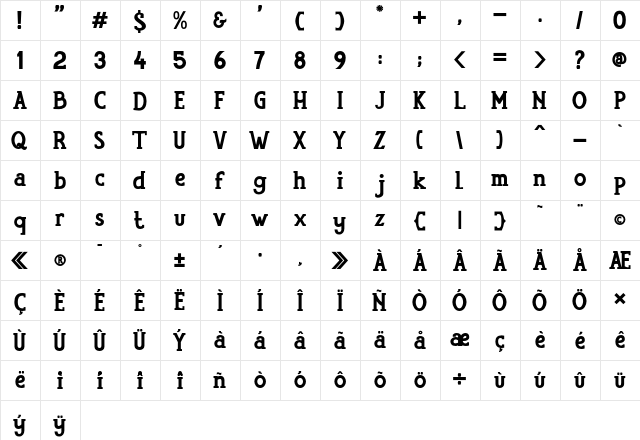
Rumoura PERSONAL USE ONLY Bold
| Foundry | Andi Winarno-INKsTYPE |
Design Context for Rumoura PERSONAL USE ONLY Typeface
Rumoura PERSONAL USE ONLY is a composed and adaptable typeface that performs quietly and consistently across a wide range of design contexts. Its bold stroke weight gives it real presence on the page.